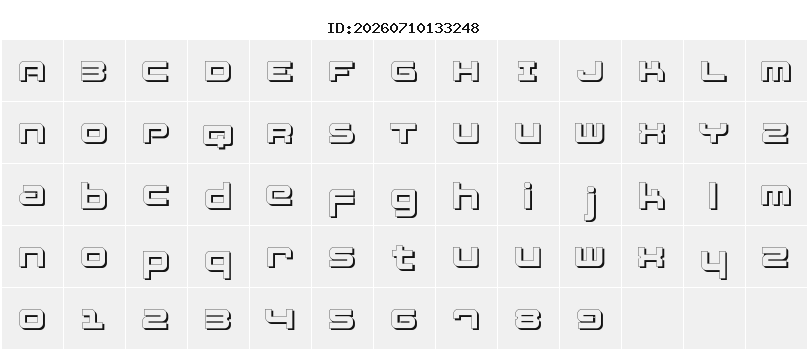
FatsansShadow Preview
• Font Name: FatsansShadow
• Full Font Name: FatsansShadow
• Version: 1.0 2002-01-26
About FatsansShadow.ttf
FatsansShadow.ttf is a modern, elegant sans-serif font designed for ultimate readability and visual harmony. Perfect for branding, headlines, web design, and print materials.